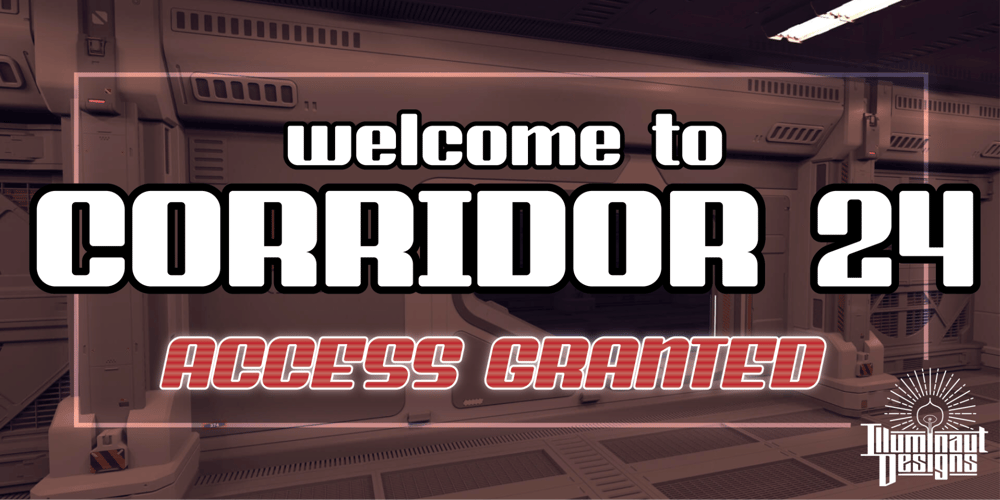
Corridor 24 Font Family was designed by Jesse Smith and published by Illuminaut Designs. Corridor 24 contains 2 styles and family package options. Corridor 24 is a friendly, sci-fi, display typeface that shamelessly discriminates against Martians. This typeface should only be used by Earth-based lifeforms. This typeface is perfect for retro and vintage branding with a science-y flair. The consistency of the rounded rectangular letter forms make designing word art easy and quick.